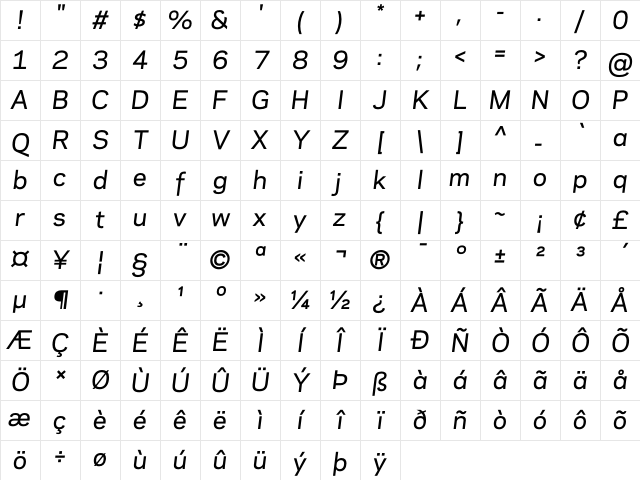
Complete Galaxie Polaris Medium Italic glyph index. Displaying only characters natively supported by Galaxie Polaris Medium Italic font.
Galaxie Polaris is a composed and adaptable typeface that performs quietly and consistently across a wide range of design contexts. The slanted form adds forward momentum and visual energy.
Pro Tip: Use Galaxie Polaris for emphasis, pull quotes, and subheadings where its slanted energy can add rhythm to the layout.